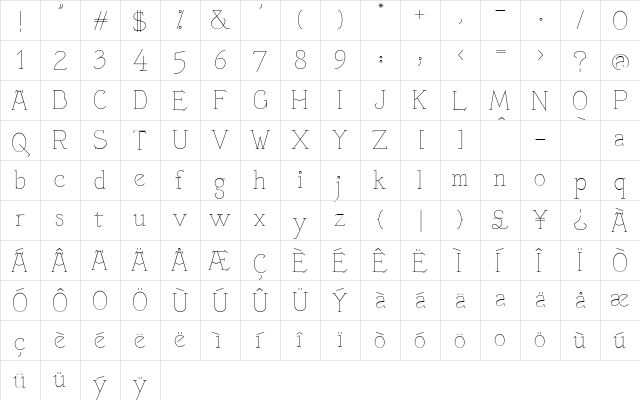
VTF Victorianna Thin
| Foundry | Sastien Hayez |
| Designer | Sastien Hayez |
Design Context for VTF Victorianna Typeface
VTF Victorianna offers clean, dependable letterforms without strong stylistic allegiance, making it a practical choice for designers who need flexibility. Its slender proportions lend an understated elegance to any composition.